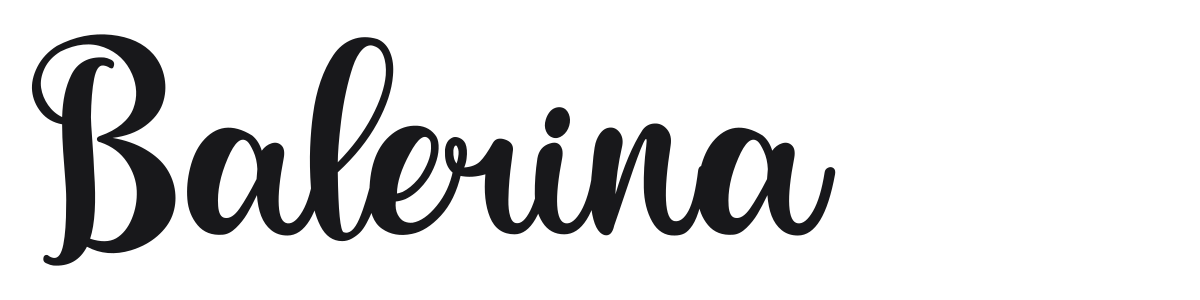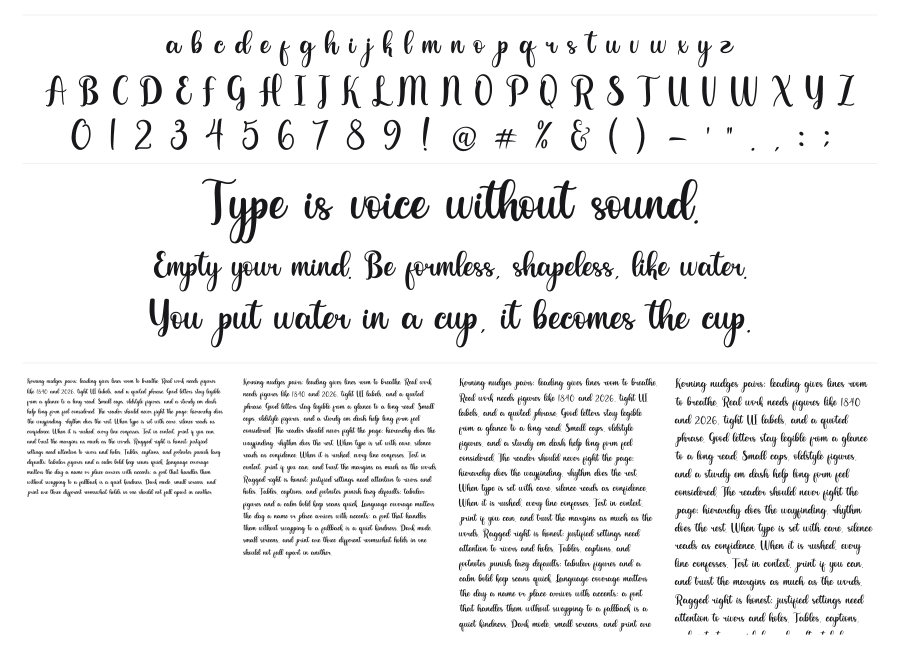
Balerina
Balerina is a bubbly connected casual script with a bouncing baseline and smooth brush-pen strokes. The looping terminals and lively rhythm give it a handcrafted warmth that feels current without being generic. It works well for branding, packaging, and anything that needs a friendly, expressive touch.